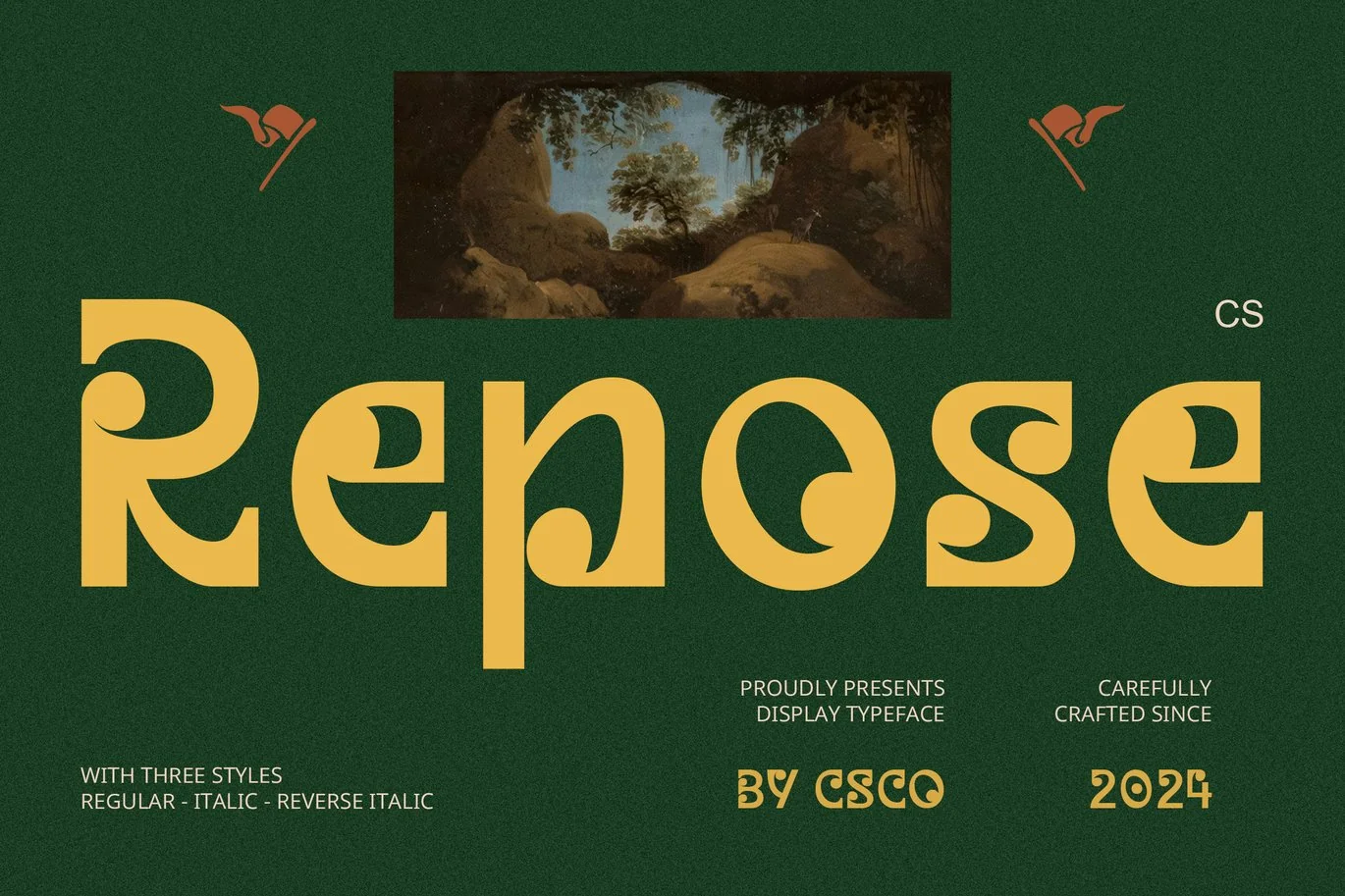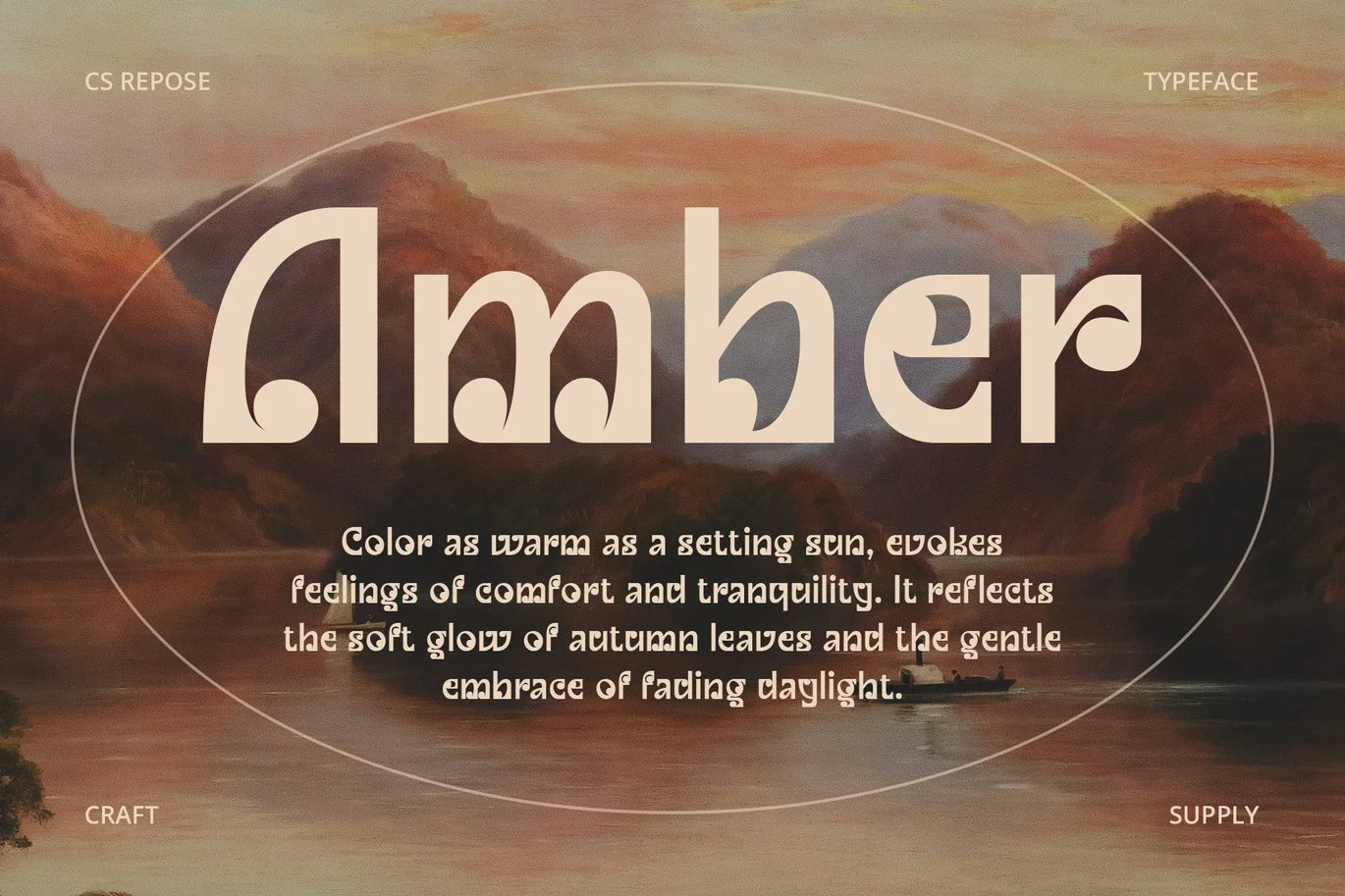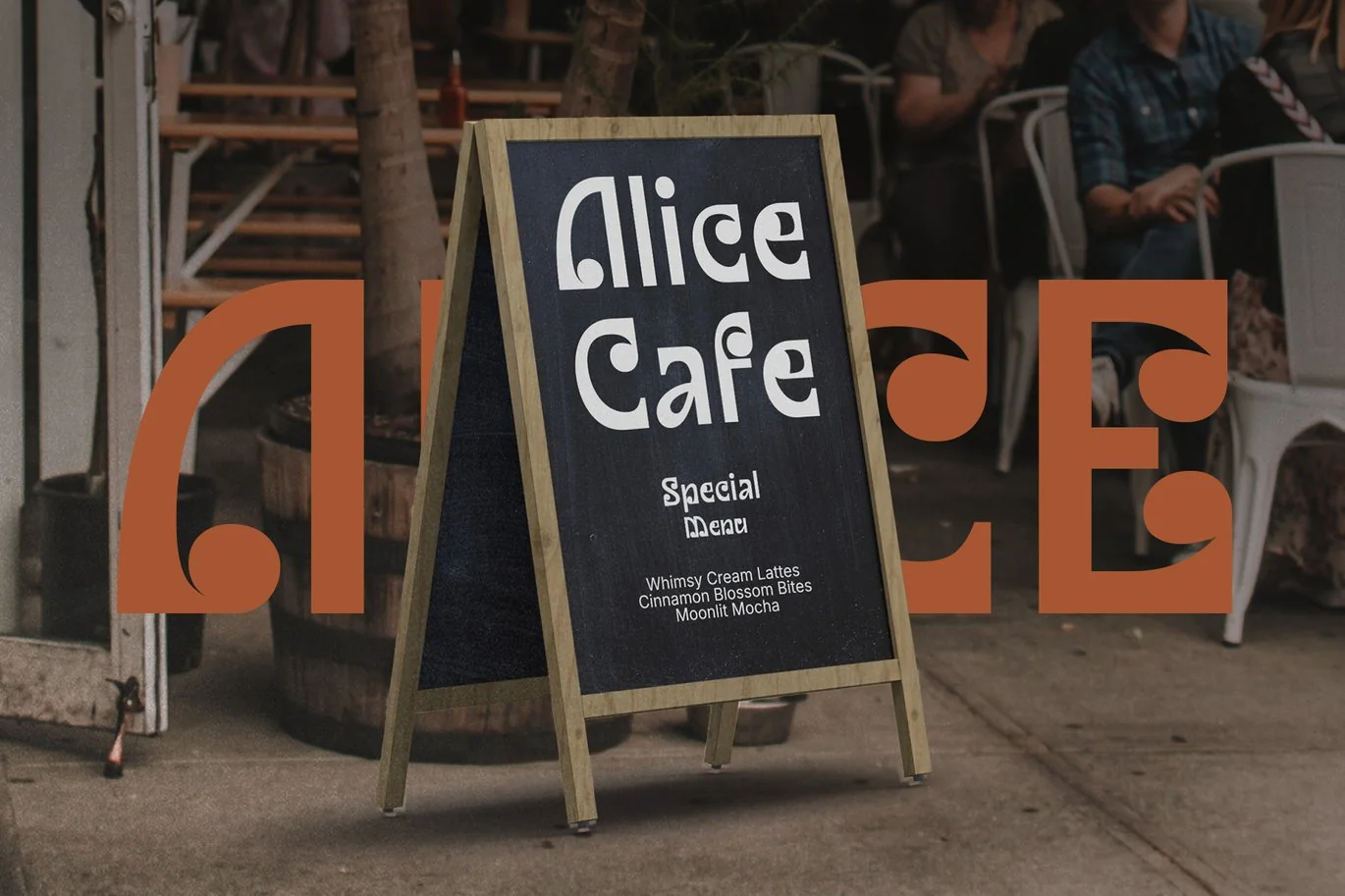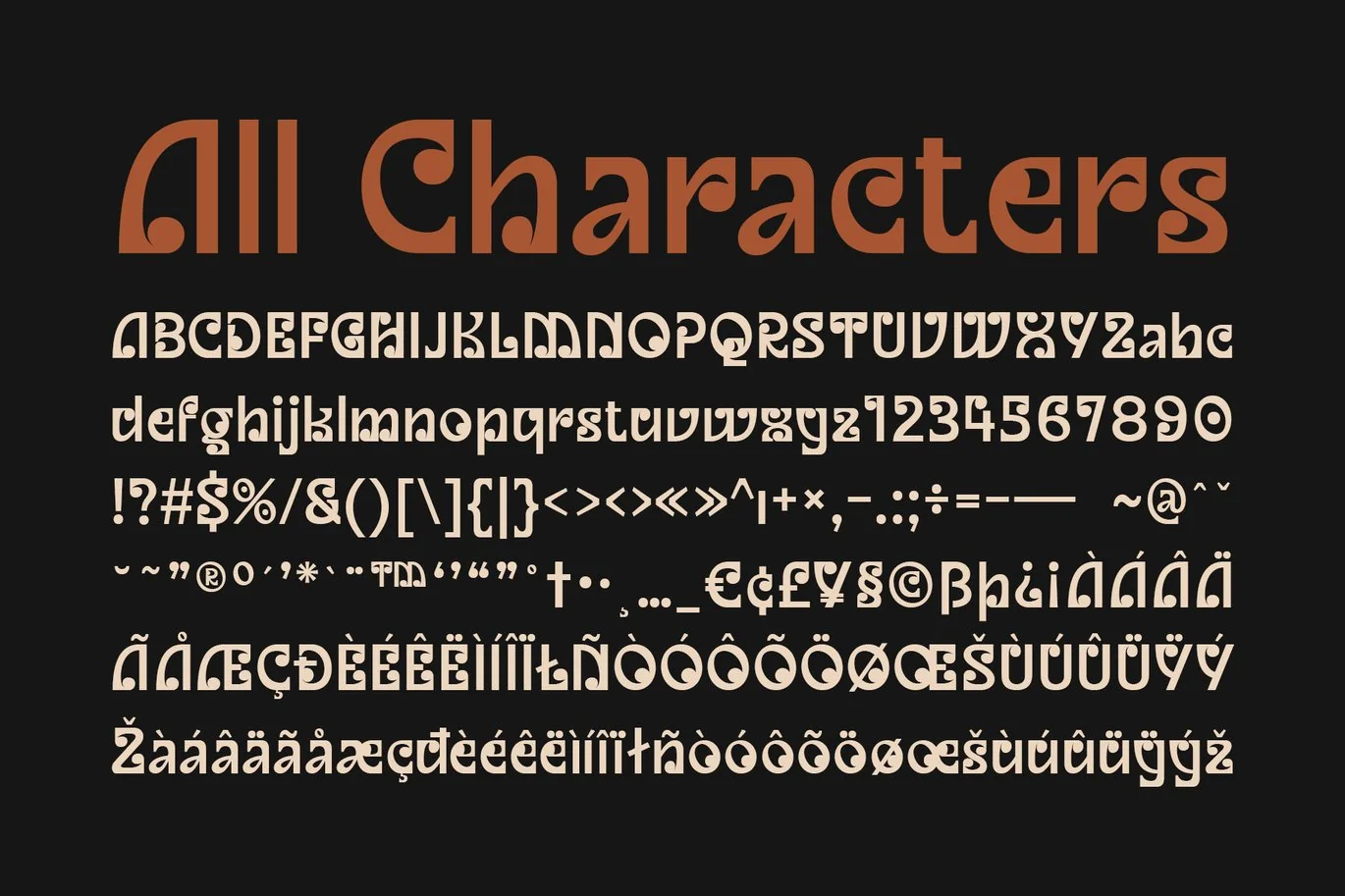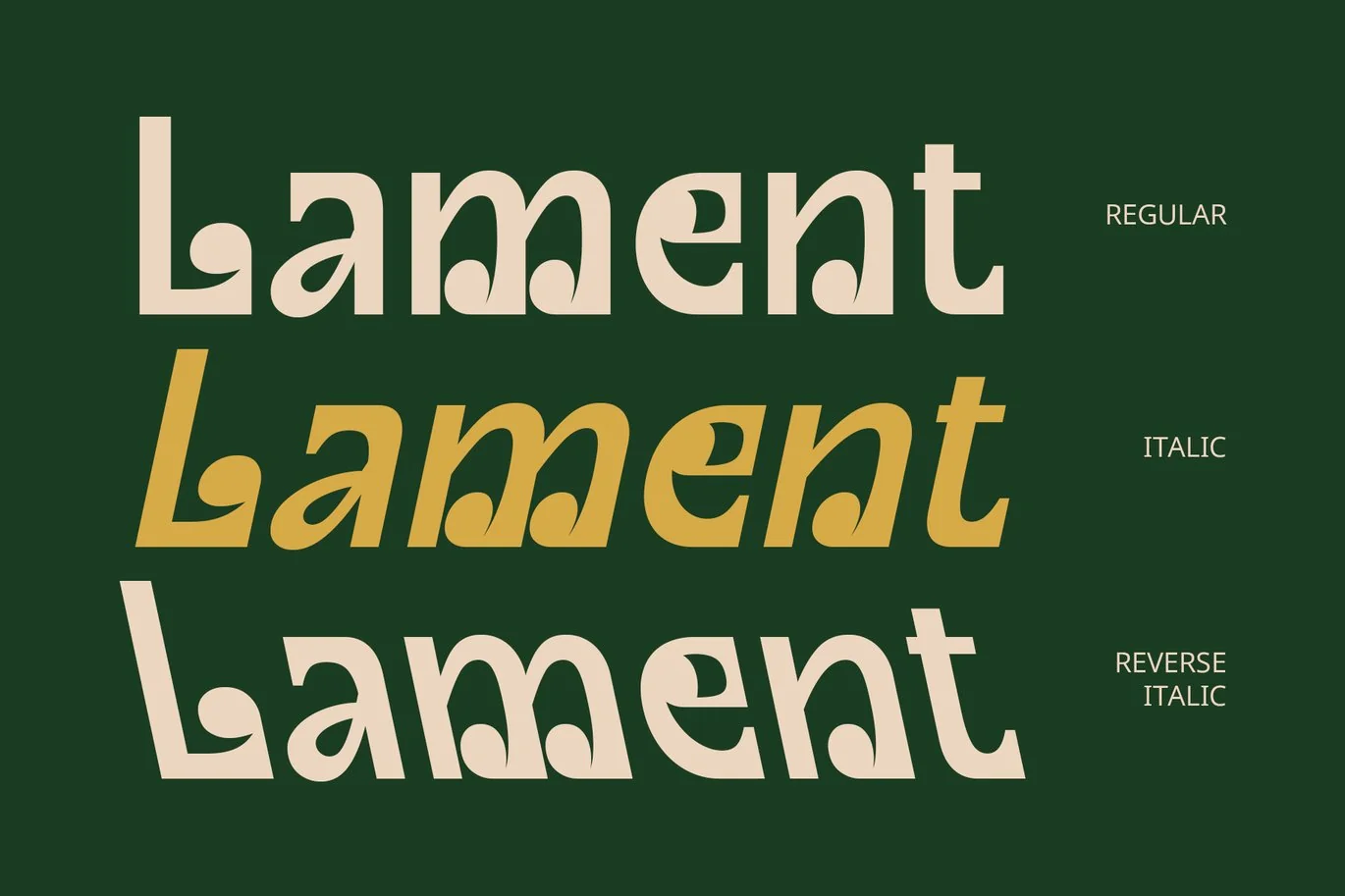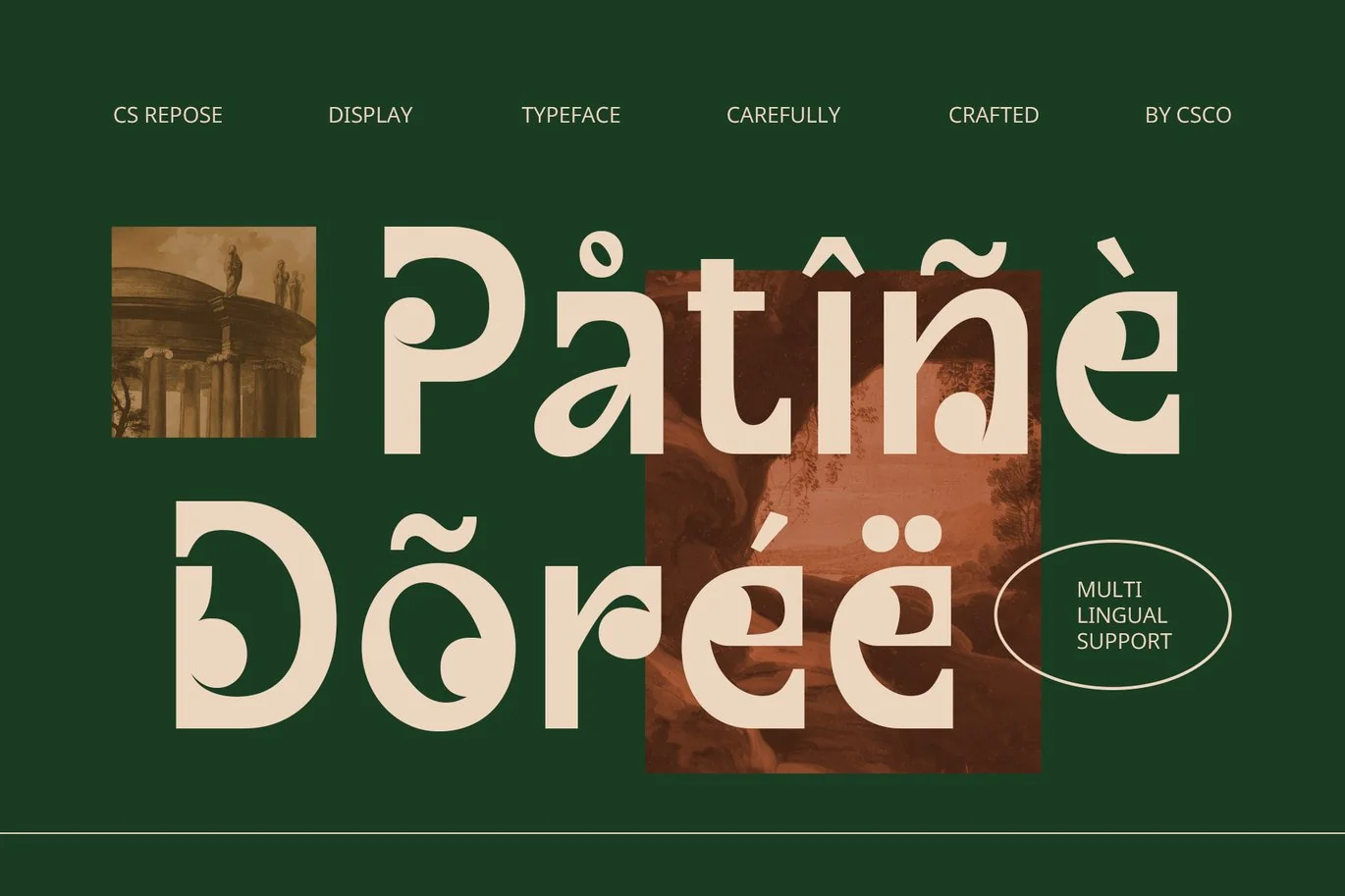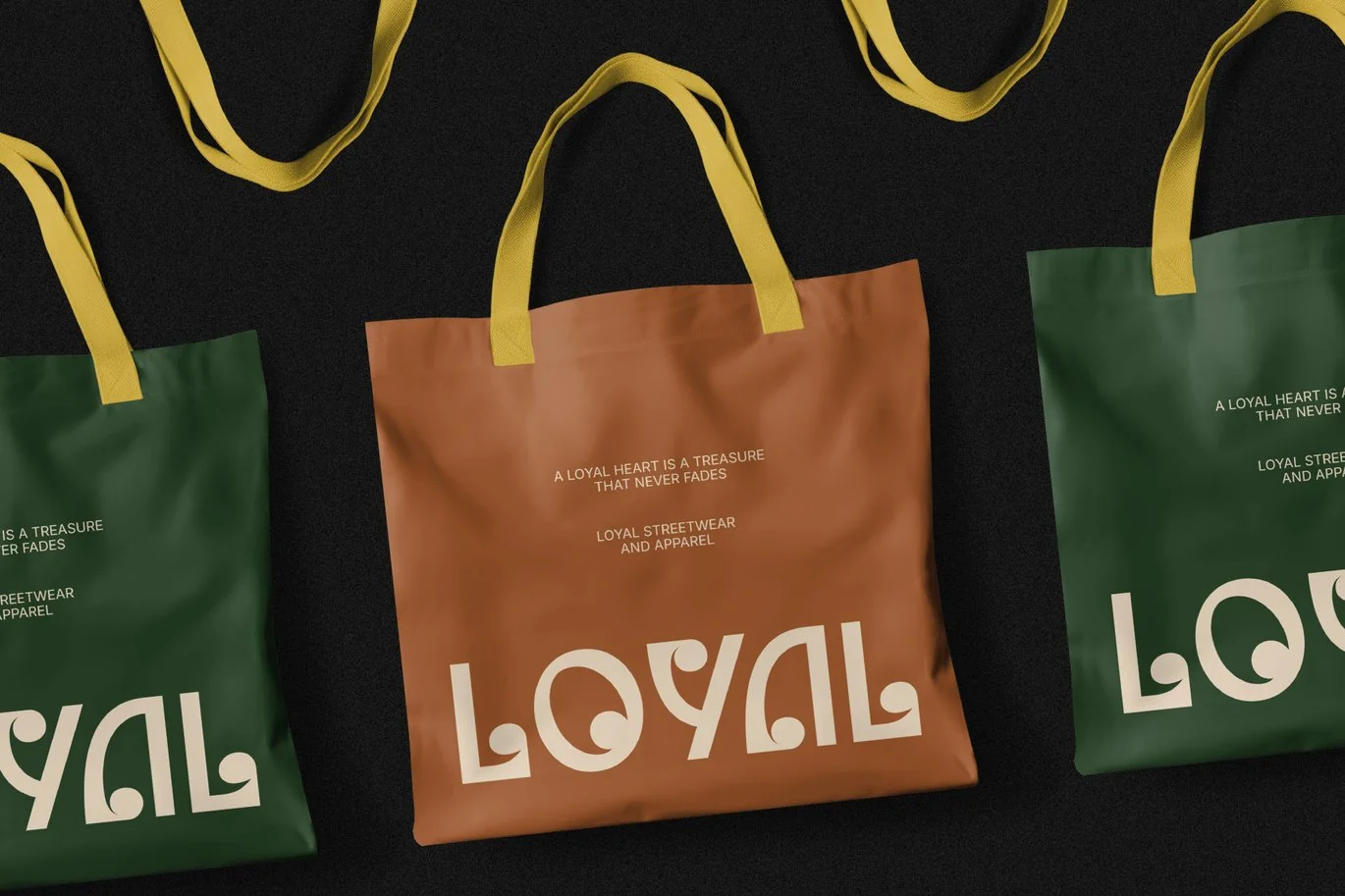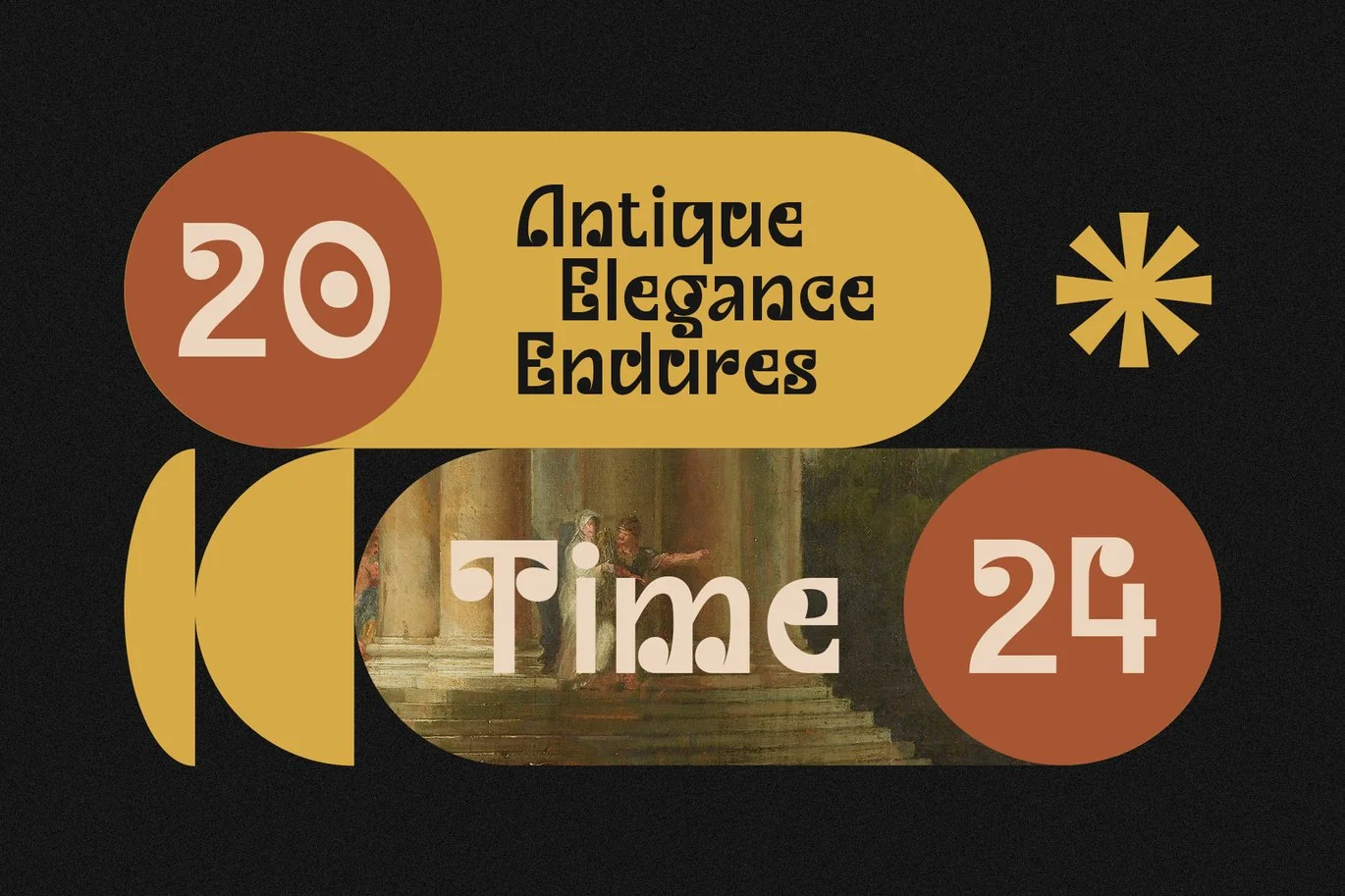
Repose – Decorative Font
CS Repose – Bold Decorative Sans Serif Font
Unleashing Dynamic Energy and Creative Expression
CS Repose is a bold decorative sans-serif display font that radiates vibrant energy and creative flair. Its dynamic letterforms combine striking, modern shapes with artistic, funky details that immediately catch the eye. Designed for those seeking a fresh, confident, and expressive aesthetic, this font is ideal for projects aiming to make a bold statement while retaining a sense of playfulness and originality.
Perfect for Vibrant Branding and Artistic Projects
Whether you’re designing event posters, album covers, creative branding, or promotional materials, CS Repose brings an unmistakable personality to your work. Its decorative style infuses each project with a daring, lively quality that captures attention and communicates a sense of fun and excitement. The bold design ensures maximum readability while delivering an unforgettable visual impact, making it perfect for both modern and artistic applications.
Versatility for Modern and Funky Themes
CS Repose stands out with its ability to adapt to a wide range of creative scenarios. From colorful and playful themes to contemporary branding campaigns, this font embodies versatility while maintaining its unique charm. Its decorative elements add a layer of individuality, ensuring your designs exude originality and confidence.